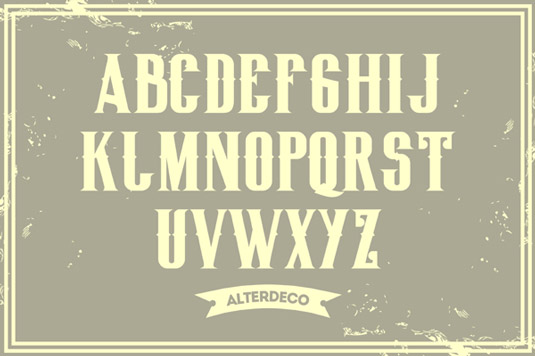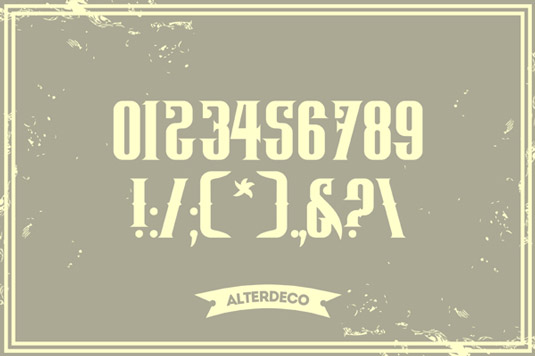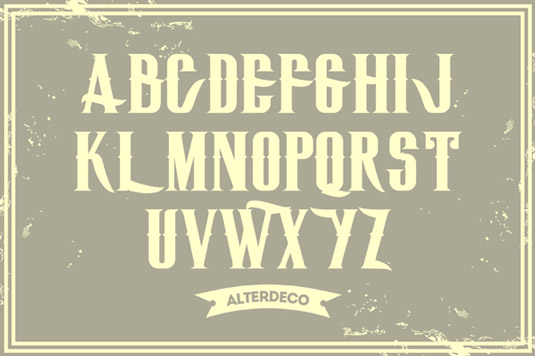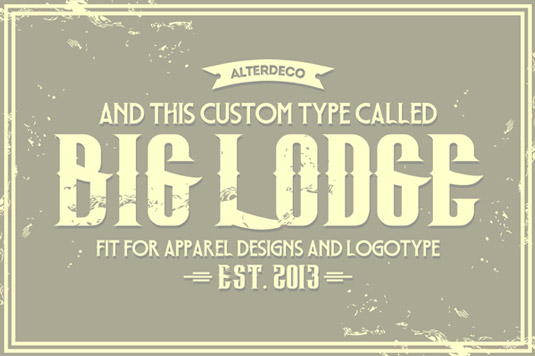
Font of the day: Big Lodge
Every day we showcase the best fonts on the web. Today it's Big Lodge by Adit Saputra.
Big Lodge by Adit Saputra
Freelance graphic designer Adit Saputra is the man behind our font of the day, Big Lodge. "This custom type is a premium vintage and retro style font, fit for a logotype, band logo, or apparel design," he says.